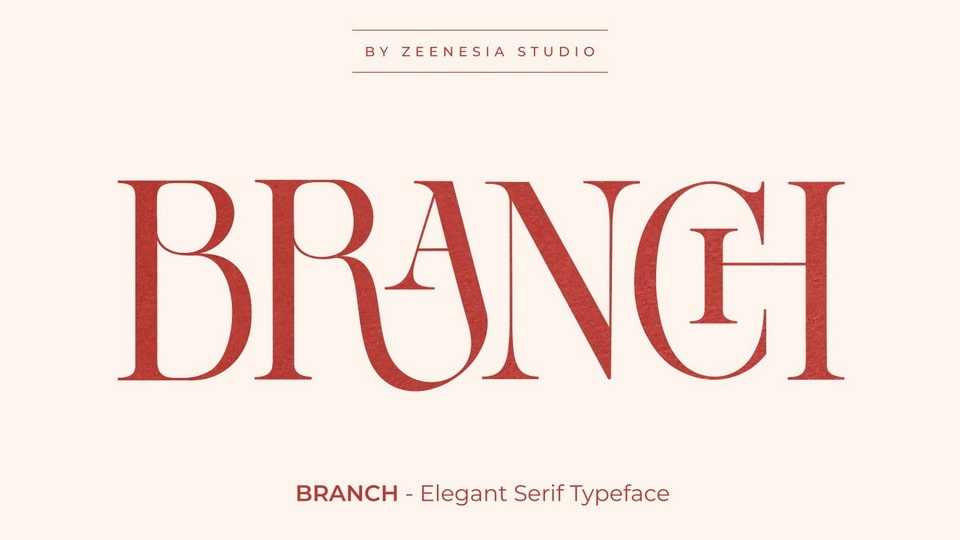
Download Branch font, a beautiful and smooth serif typeface created by a romantic and lovely look. Branch font features some natural ligatures to make it very elegant and look so classy.
Designer: Zeenesia Studio